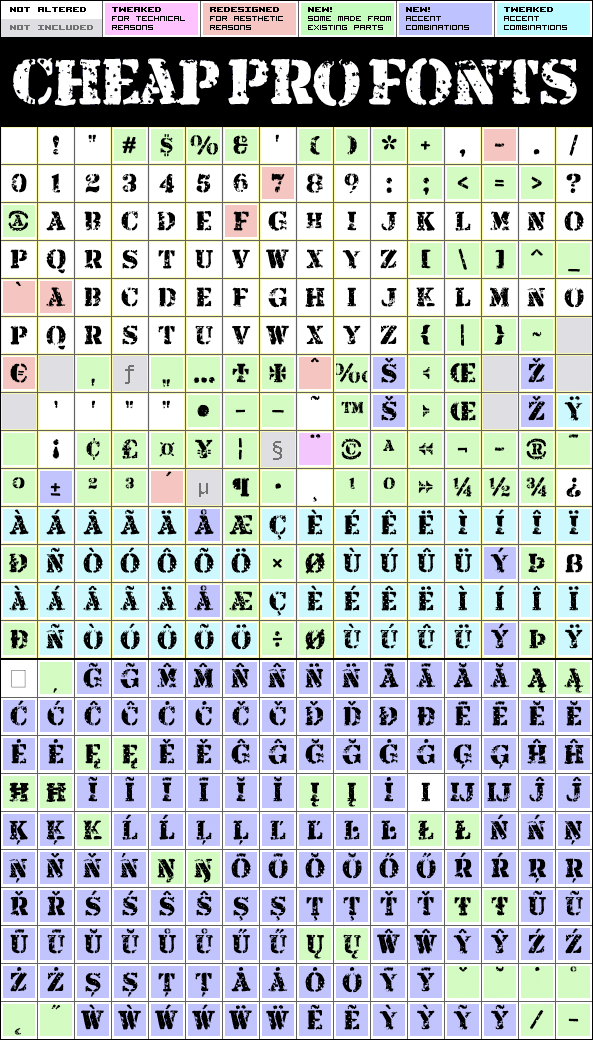
Armalite Rifle Pro
Armalite Rifle Pro by Vic Fieger
374 glyphs!
(137 in original)
225 class kernpairs
= 12222 kerning pairs
(none in original)
Military style stencil type, badly bruised by shotgun fire, wear and tear. Now ready for action in more languages!
Vic Fieger says: "The original letterforms were not the famous military stencil, but were drawn freehand then scanned into Photoshop. Next, they were altered using a series of brushes before being imported into a font.
This font has been used in the Flash games Pandemic and Artillery."
Armalite Rifle Pro is a professionally reworked font that contains an extended character set for setting text in 65 languages requiring more than the basic A-Z!